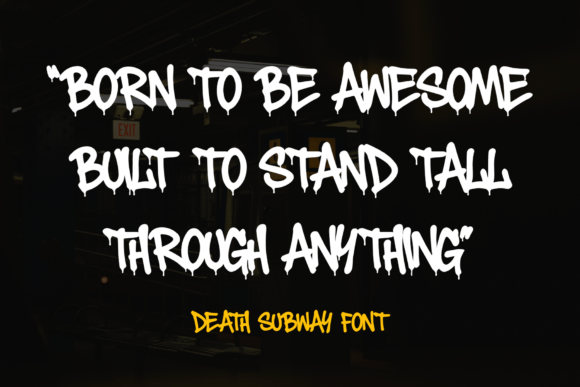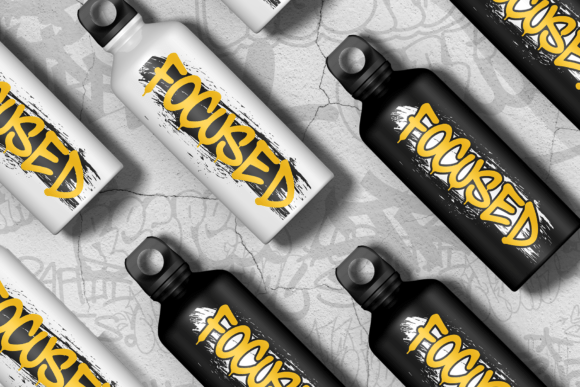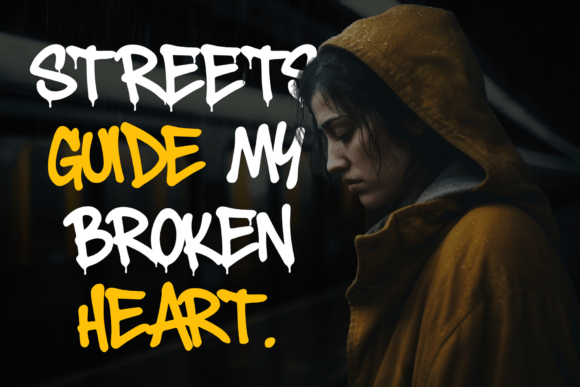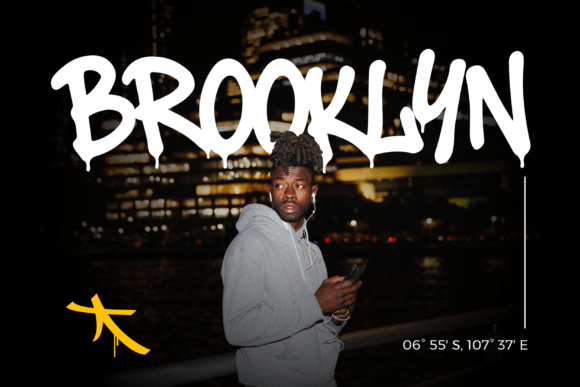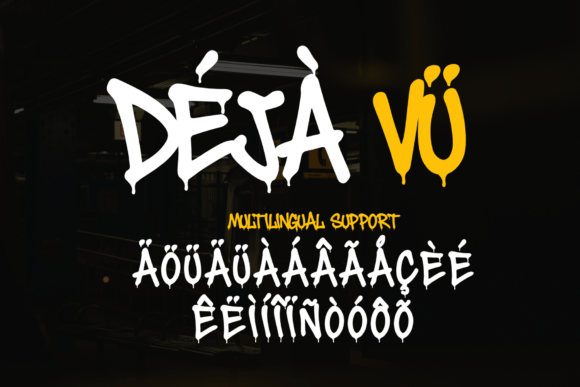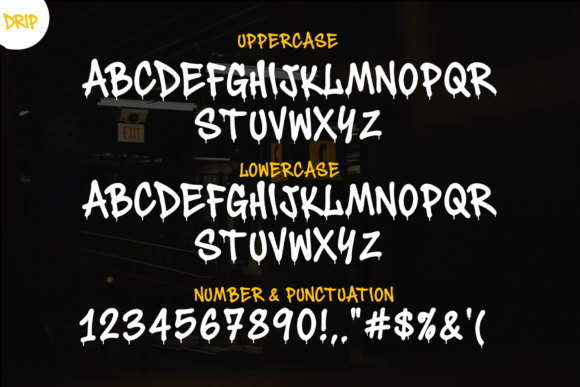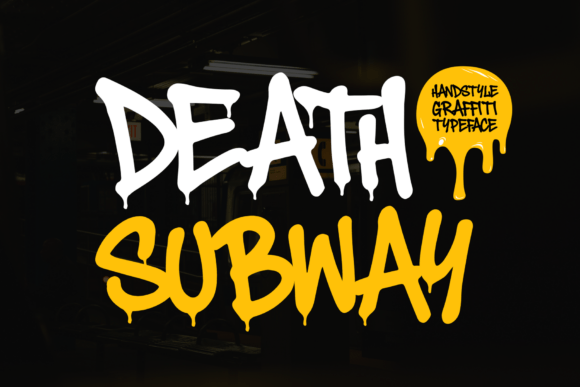
Unleash the Raw Energy of Underground Street Art with Death Subway Graffiti Font
For designers, artists, and brands seeking to infuse their visuals with the unbridled spirit of street art and urban rebellion, the Death Subway Graffiti Font is an unparalleled choice. This dynamic, handstyle graffiti creation embodies the essence of underground art, offering a bold, fearless, and authentic aesthetic that is sure to captivate audiences. Inspired by the raw energy of subway walls, bridges, and the concrete jungle, Death Subway is more than just a font – it’s a visual identity that screams rebellion and artistic expression.
The Birth of Death Subway
Death Subway is a thoughtful recreation of the graffiti culture that thrives in the shadows of urban landscapes. Each letter in this typeface is meticulously crafted to reflect the imperfections and natural flow of real marker lines, giving it a hand-crafted feel that’s impossible to ignore. The font’s name, “Death Subway,” serves as a nod to its roots in the underground graffiti scene – a world where art and rebellion converge.
Dual Styles for Versatility: Clean and Drip
One of the standout features of Death Subway is its availability in two distinct styles: Clean and Drip. This versatility allows artists and designers to choose the perfect variation to suit their project’s needs. The Clean version offers tight, legible strokes that are ideal for branding and typography requiring structure without losing the street soul. On the other hand, the Drip style captures the essence of freshly painted walls and tagging energy, complete with ink drips that add motion and attitude to every word.
The Clean Version: Structure Meets Street Soul
The Clean version of Death Subway strikes a perfect balance between legibility and street authenticity. It’s perfect for projects that require a graffiti aesthetic with a bit of polish, such as branding, posters, and advertisements. This style ensures that your message is delivered with clarity and impact, making it an excellent choice for designers looking to add an urban twist to their typography.
The Drip Version: Embodying the Raw Spirit of Graffiti
The Drip version of Death Subway takes the essence of graffiti to the next level, offering a dynamic and highly expressive style that’s as raw as it is captivating. Ink drips and natural inconsistencies give this font a sense of movement and energy, perfect for projects that aim to evoke the spontaneous, unbridled nature of street art. From album covers to streetwear designs, the Drip version brings an unmistakable vibe that’s sure to turn heads.
Crafting an Authentic Graffiti Aesthetic
What sets Death Subway apart is its meticulous attention to detail, ensuring that every letterform feels genuinely hand-crafted. The font’s design process involved deep research into graffiti culture and street art, resulting in a typeface that’s not only visually striking but also deeply rooted in the ethos of urban rebellion. The imperfect edges and natural flow of each character make Death Subway a powerful tool for designers seeking to inject their work with a dose of authenticity and edge.
Applications for Designers and Crafters
Death Subway’s versatility and distinctive style make it an excellent choice for a wide range of applications. Designers can use it to:
- Create compelling branding and advertising campaigns that resonate with a younger, urban audience.
- Design eye-catching posters, flyers, and brochures that stand out in a crowded visual landscape.
- Develop unique and engaging digital content, such as social media graphics and website headers, that reflect a brand’s edgy personality.
- Craft innovative streetwear and apparel designs that speak to the wearer’s individuality and connection to street culture.
| Author | sipanji figuree |
Death Subway Graffiti Font is more than just a typeface – it’s a gateway to the vibrant, rebellious world of underground street art. With its raw energy, authentic aesthetic, and versatile styles, it offers designers and brands a unique opportunity to connect with their audience on a deeper level. Whether you’re looking to add a touch of urban grit to your branding, create dynamic streetwear designs, or simply explore the artistic side of typography, Death Subway is the perfect companion for your creative journey.
Embrace the spirit of urban rebellion and artistic expression. Unleash the power of Death Subway Graffiti Font in your designs and witness the transformation of your visuals into bold statements of creativity and attitude.